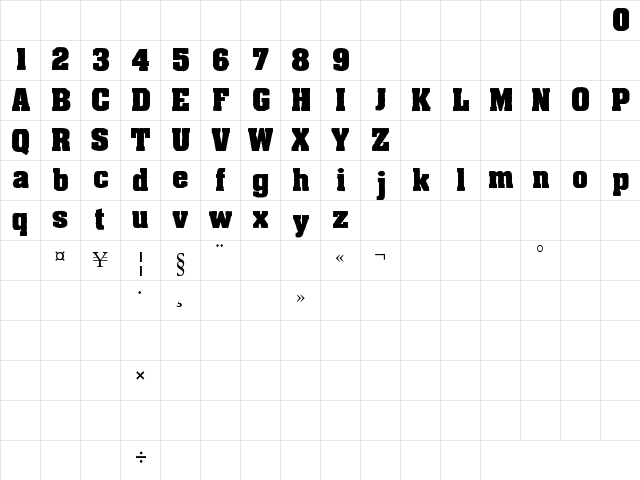
Complete Dirty Old Town Regular glyph index. Displaying only characters natively supported by Dirty Old Town Regular font.
Dirty Old Town is a composed and adaptable typeface that performs quietly and consistently across a wide range of design contexts.